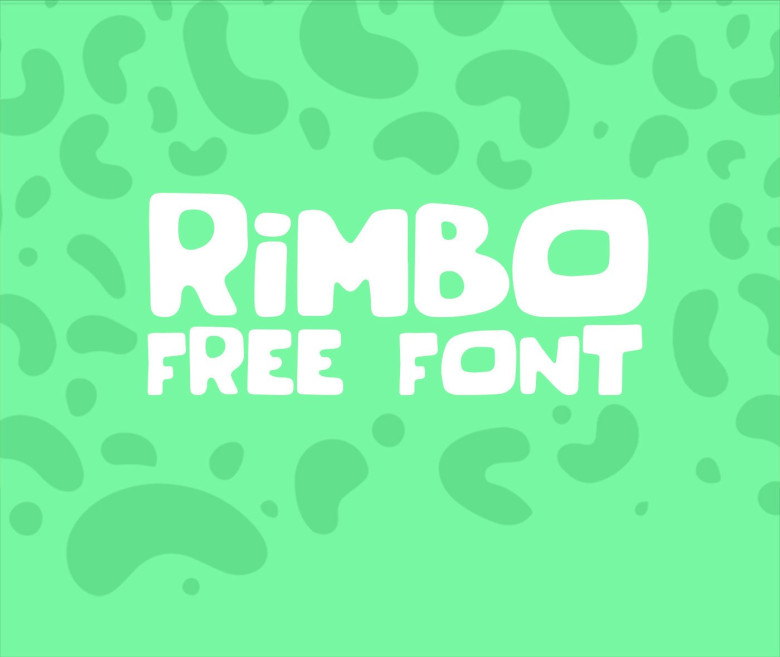
RIMBO Font
RIMBO FREE FONT
I present to you a dish handwriting styles new, it will help in your work, perfect for birthday invitations, greeting cards and other fun activities. Introducing RIMBO Font! A new script font, RIMBO Font designed and shared by FREE GOODIES FOR DE. RIMBO is a handwritten font very playful and with a lot of personality, looks great for any kind of project and give a personal touch for everything you do. Hope you guys enjoy and make awesome stuff with it.